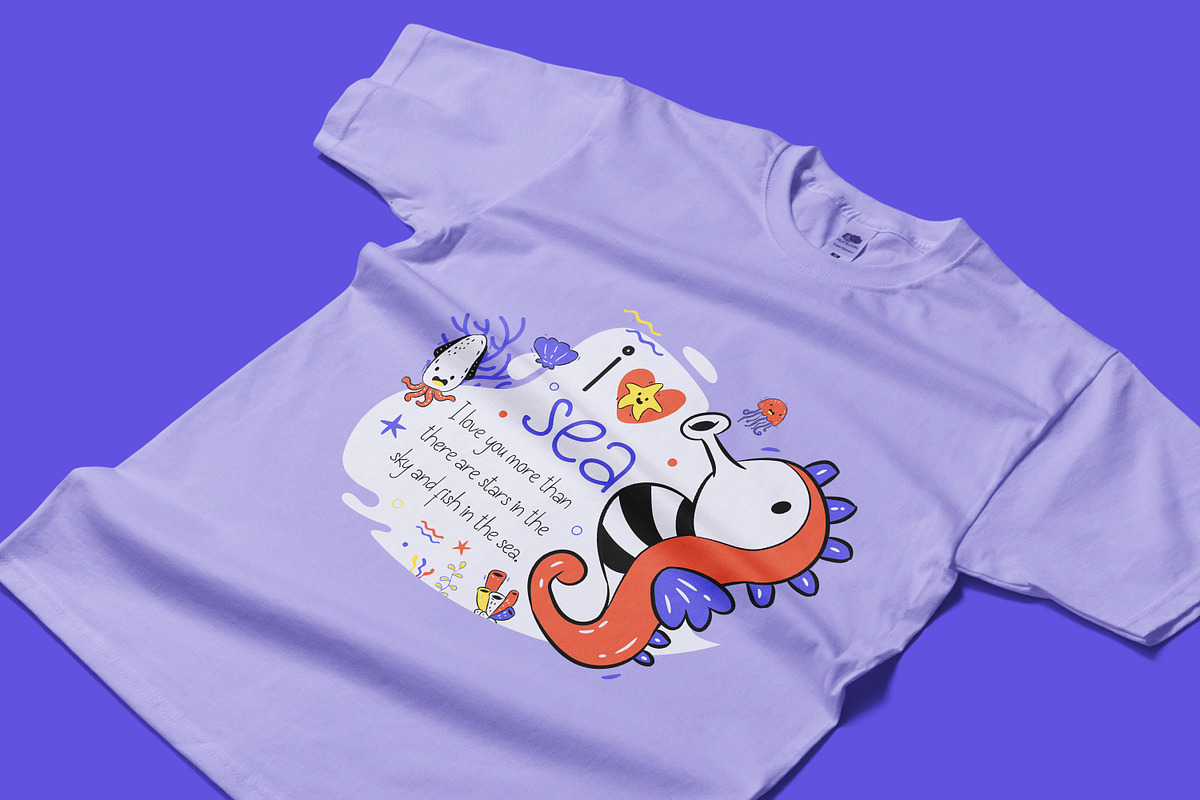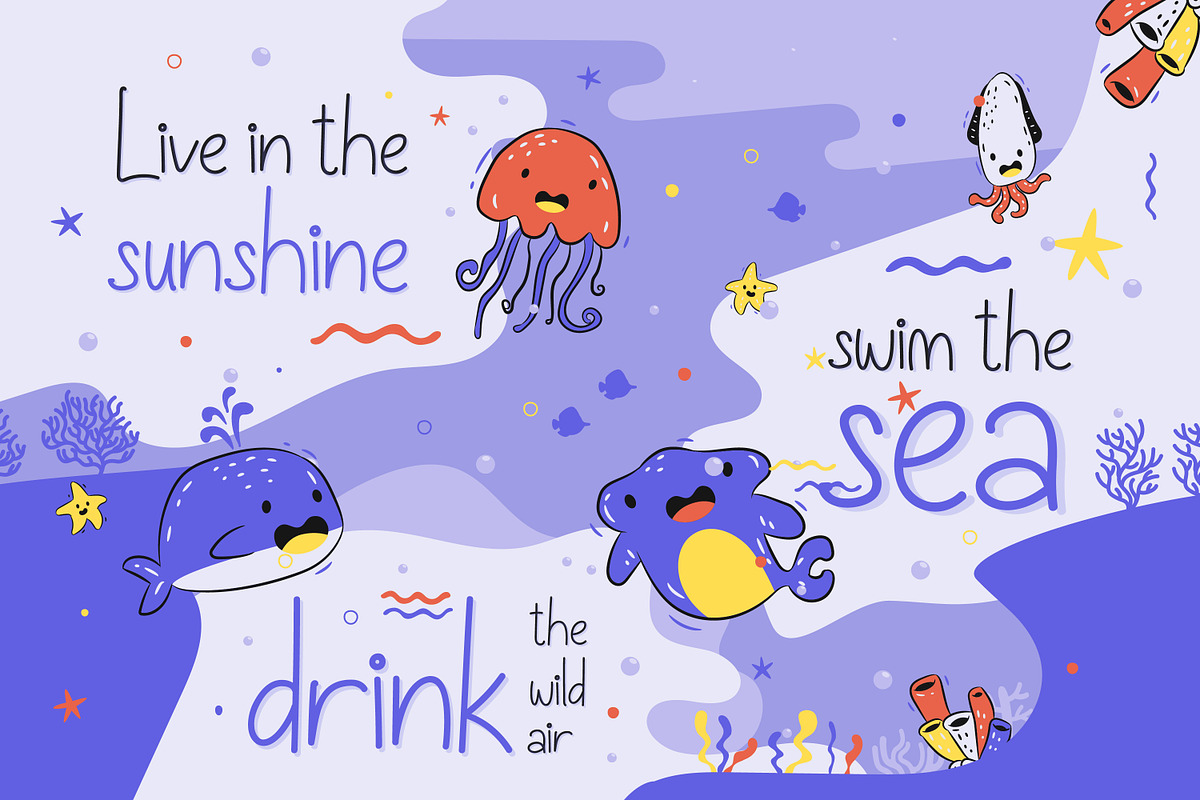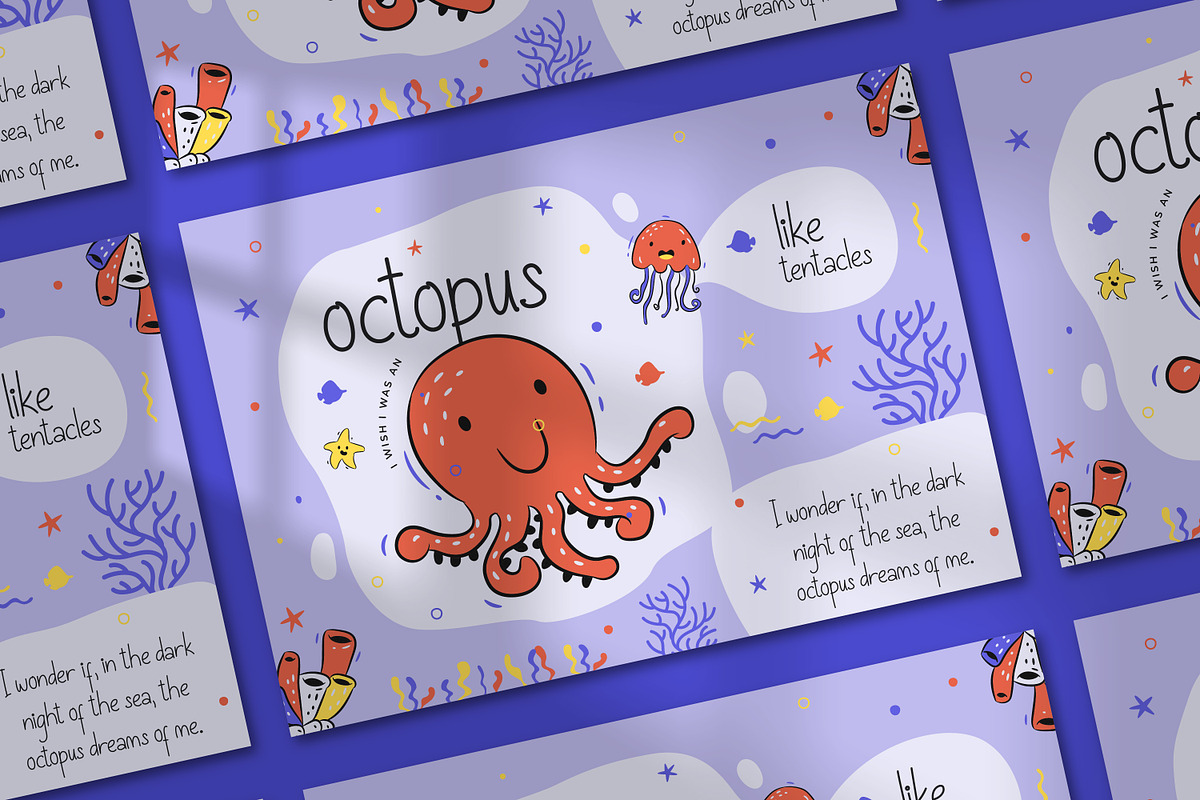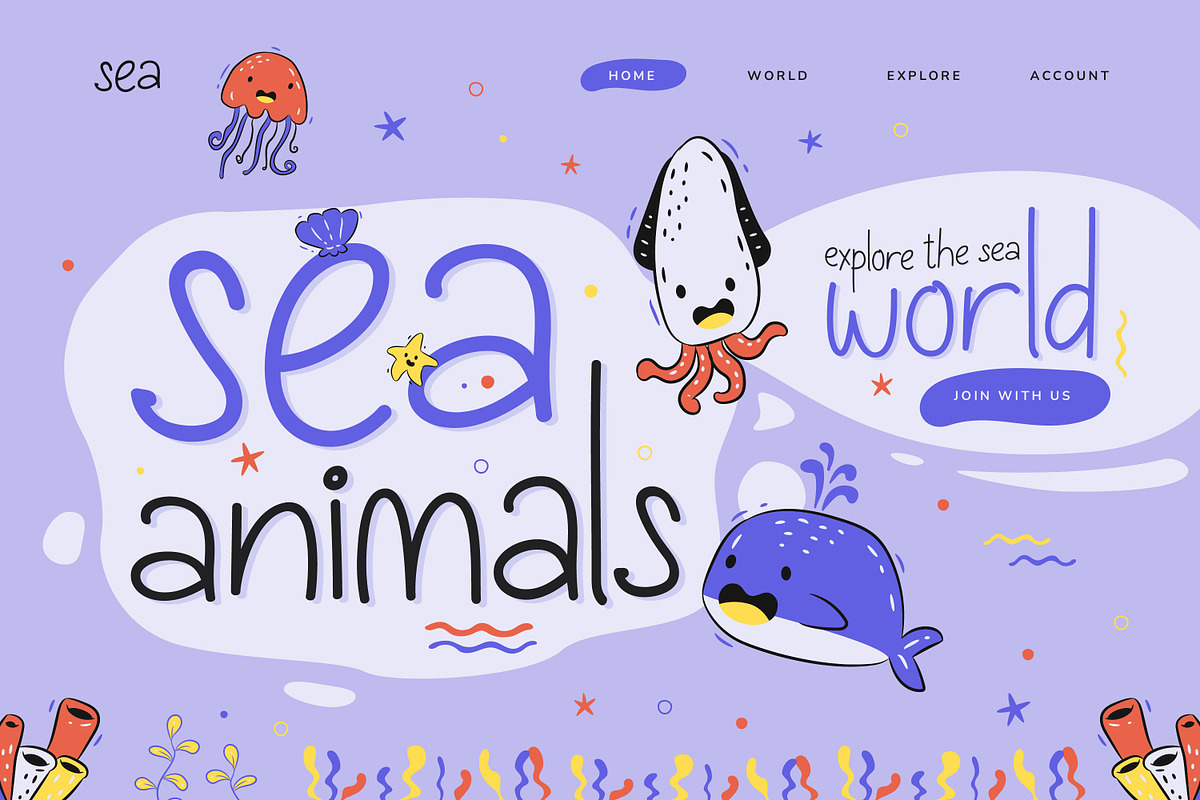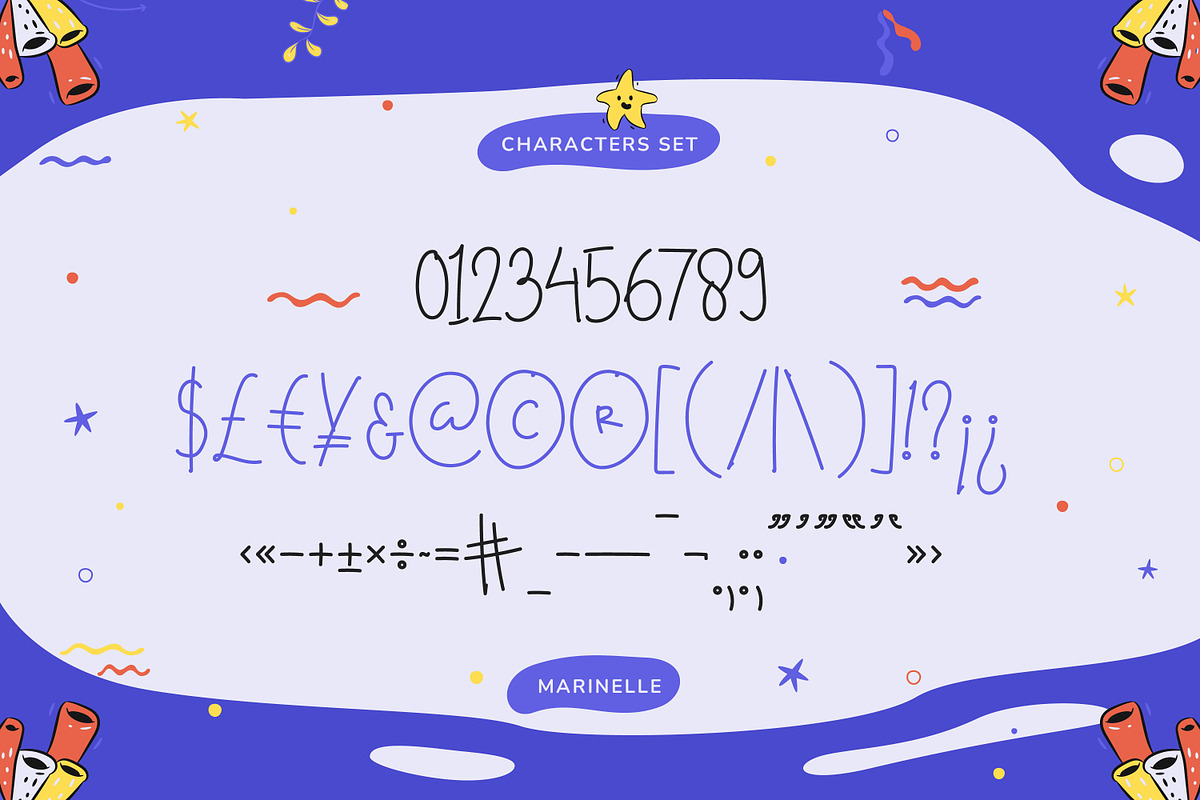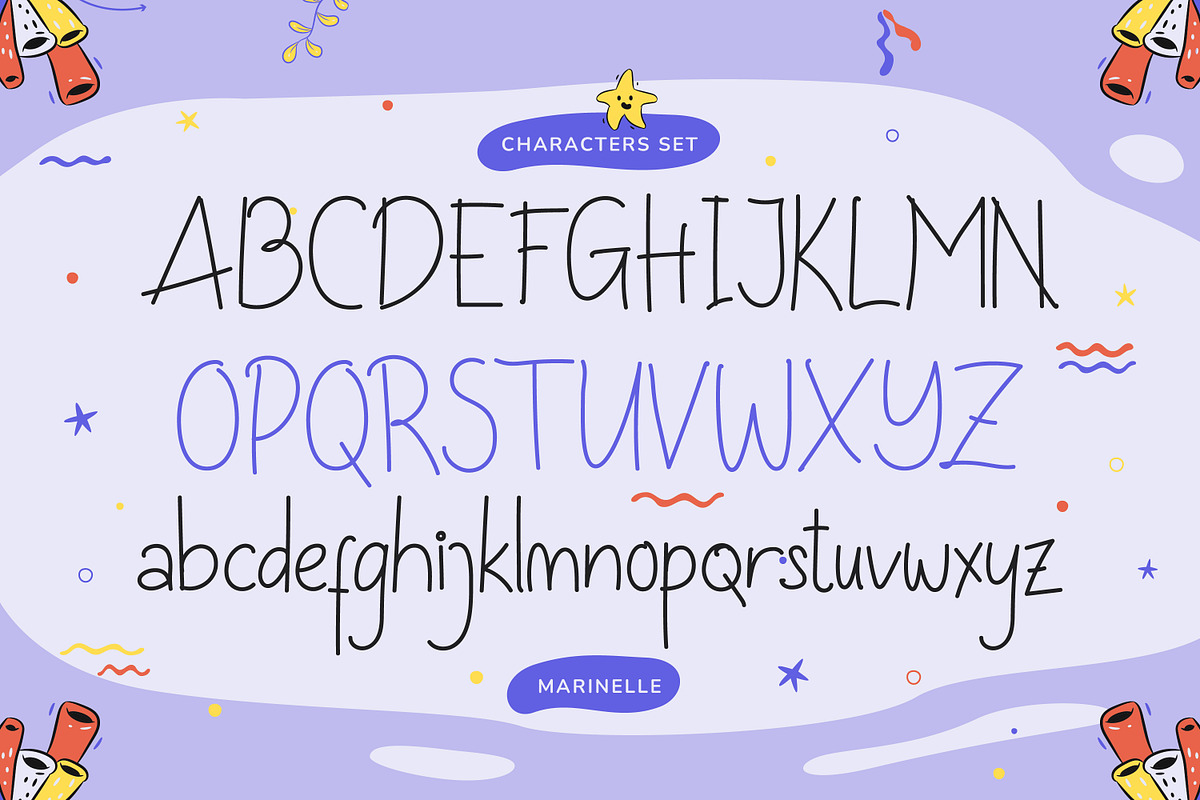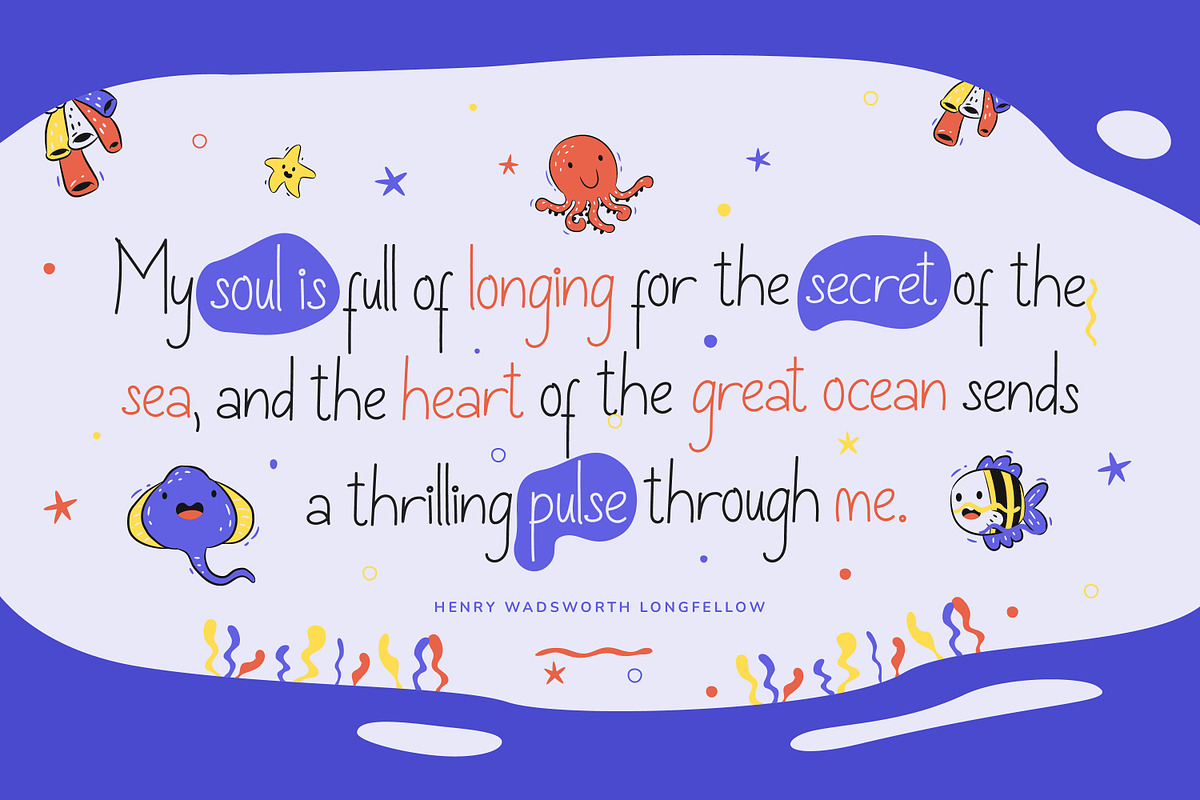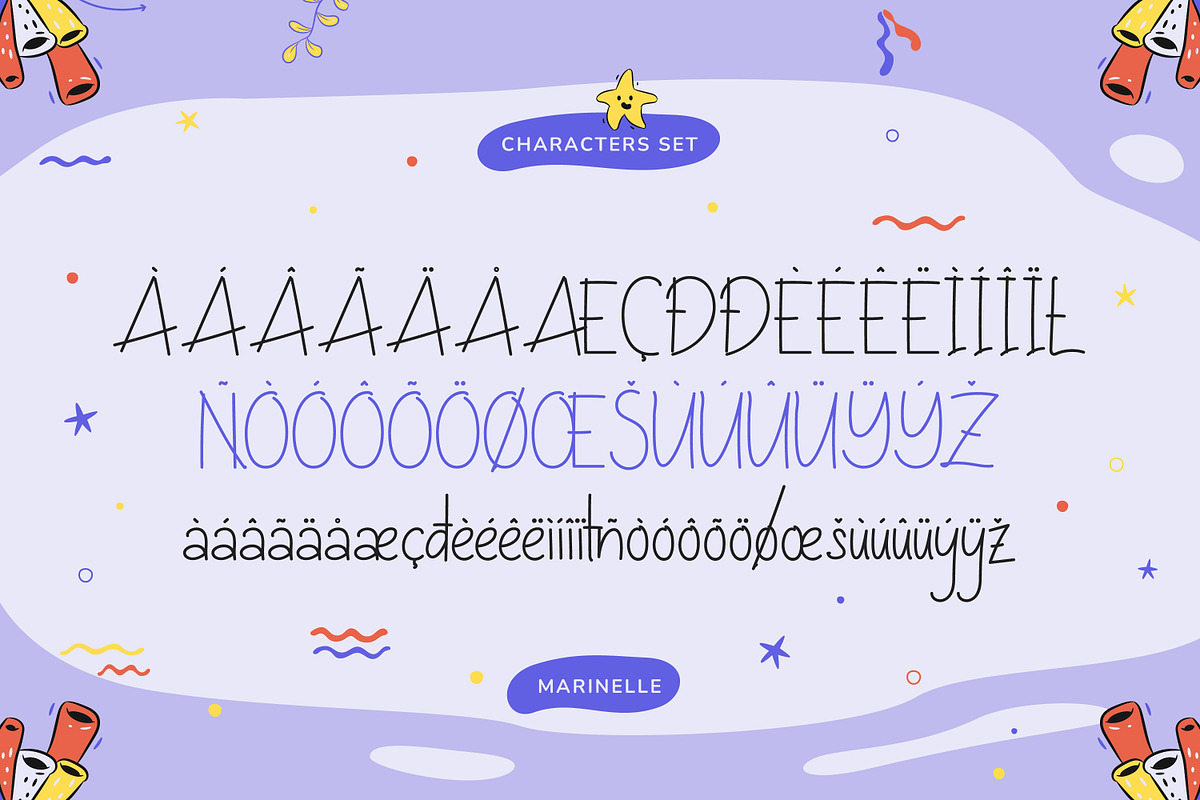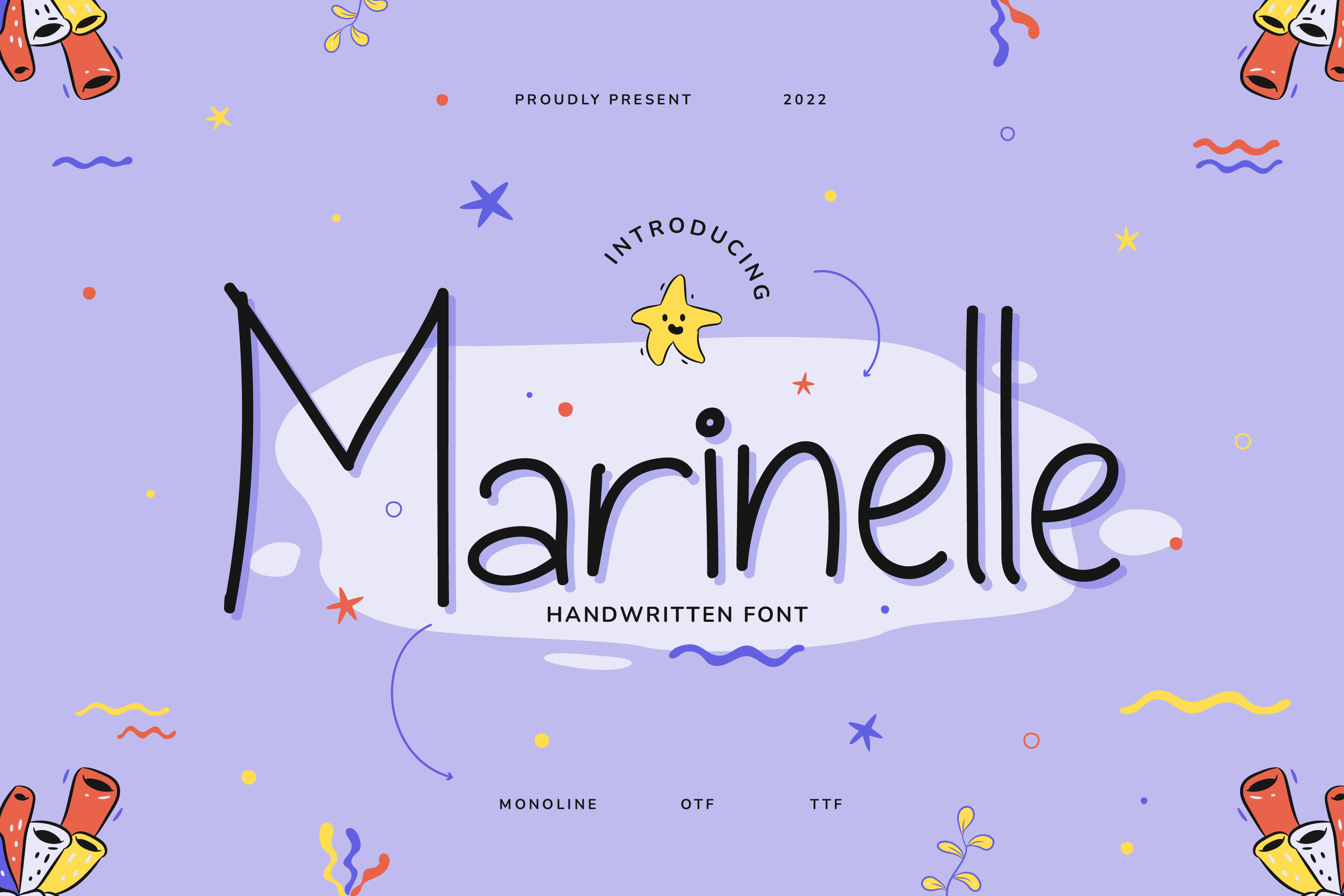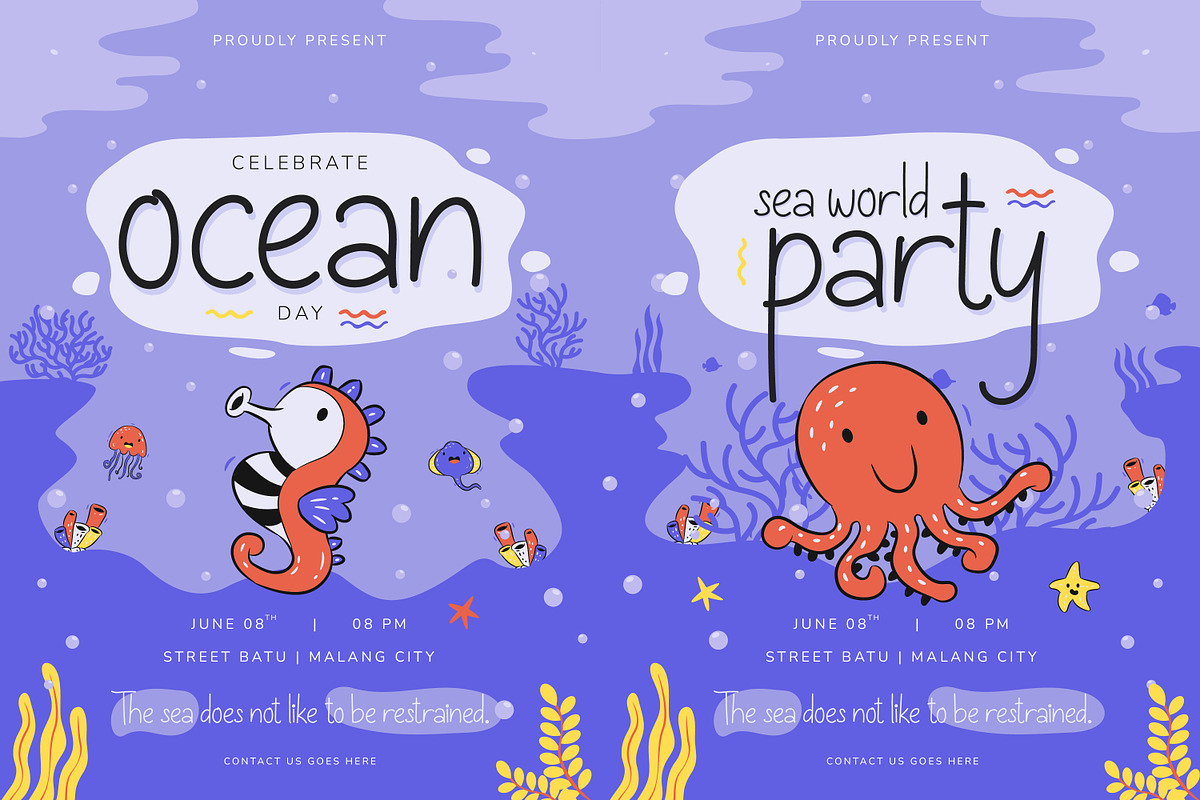
Marinelle Flowing Handwritten Font
Marinelle is a delicate and flowing handwritten font. It has beautiful and well-balanced characters and as a result, it matches a wide pool of designs.